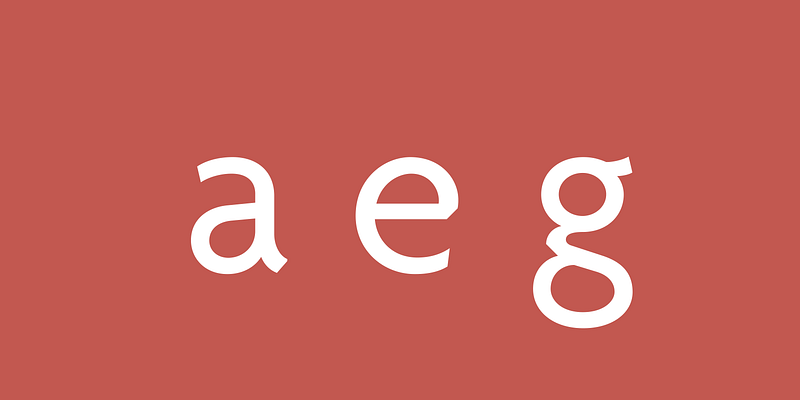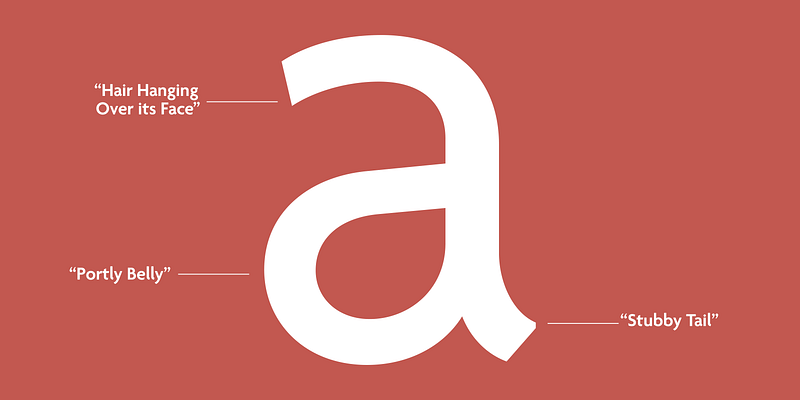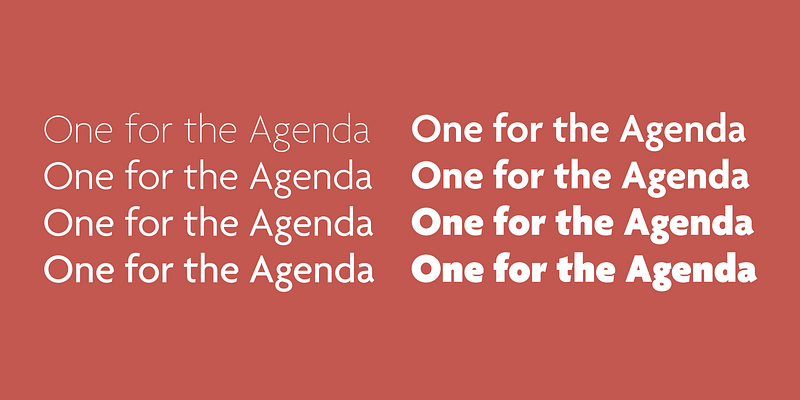
Agenda is one of the iconic typefaces of the nineties. The extensive family was completely overhauled and relaunched as Agenda One. The pristine, sleek humanistic sans is a typographic all-in-one solution in Regular, Condensed, Extra Condensed, and Compressed widths and weights ranging from Thin to Black.
While Agenda One is intended to be compatible with the original Agenda, Thompson has taken the opportunity to improve some areas that he wasn’t satisfied with, notably in the very condensed styles and in the italics. “I’m much happier with the italics,” he says now. “I think I’ve done a much better job with those.”
Greg Thompson
Greg Thompson is an American typeface designer.
In the late 1980’s he converted a series of existing typefaces to PostScript for forward-looking corporate clients. In 1989 Greg began designing original typefaces for the new retail font market. He formed a decades-long association with The Font Bureau of Boston, and in 2016 launched his own foundry on Type Network.
Greg’s typefaces are part of the visual landscape in: branding, retail product packaging, especially food and cosmetics, restaurants, entertainment, including gaming, music and movie retail packaging and titles, book and magazine covers, and rental housing complexes.